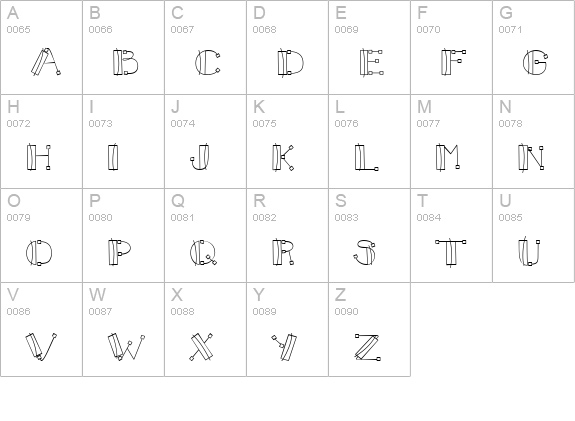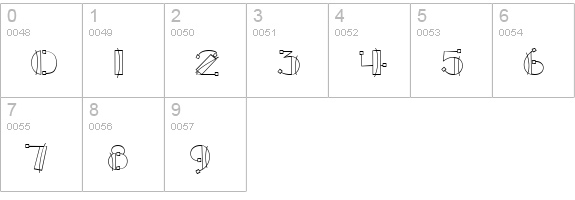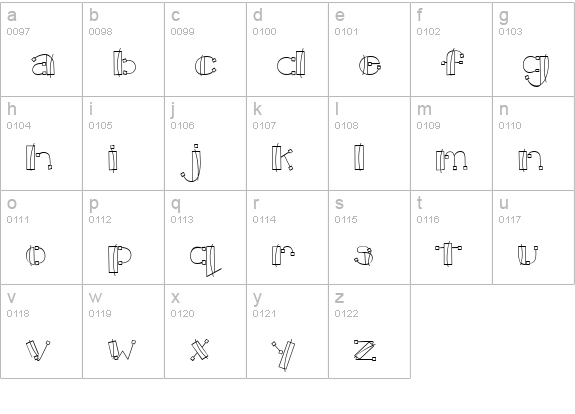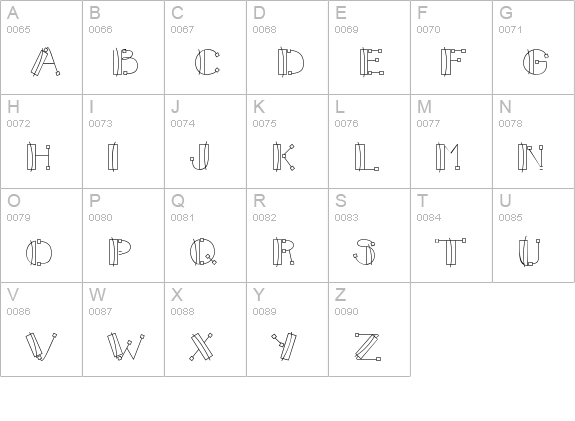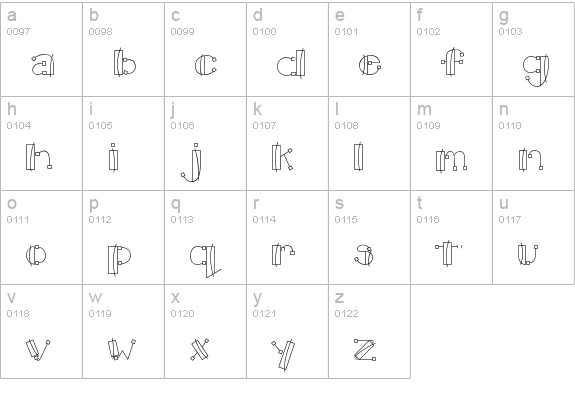
CK Slice Font Details
Introducing CK Slice font, a modern and stylish typeface that is sure to make your designs stand out. This unique font features clean lines and sharp edges, giving it a sleek and contemporary look. Perfect for branding, logos, headlines, and more, CK Slice font is versatile and eye-catching. The best part? CK Slice font is completely free to download at FontsMarket.com. That's right, you can enhance your projects with this stunning font without spending a dime. So why wait? Download CK Slice font today and add a touch of sophistication to your designs.